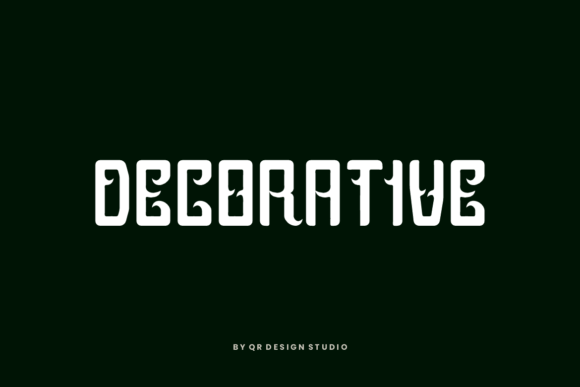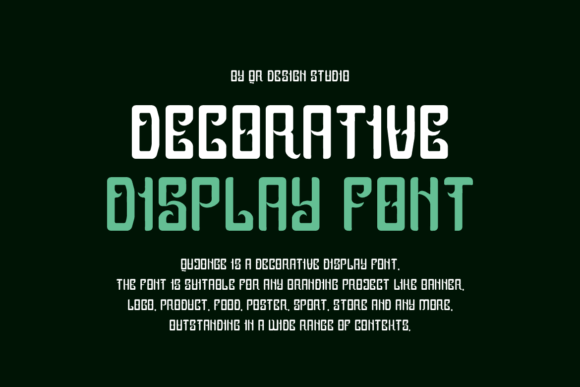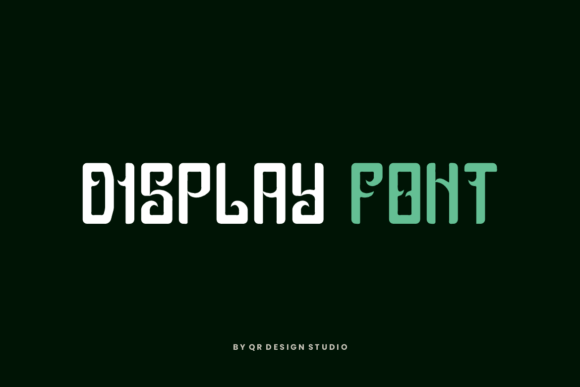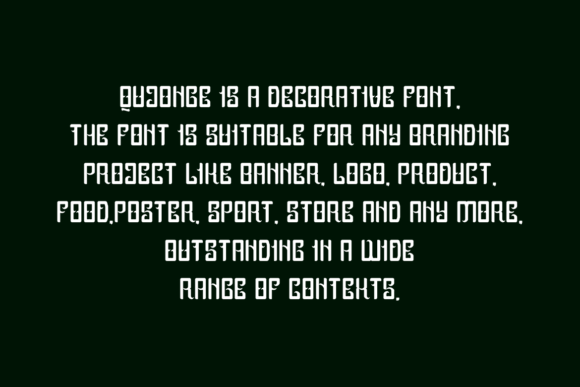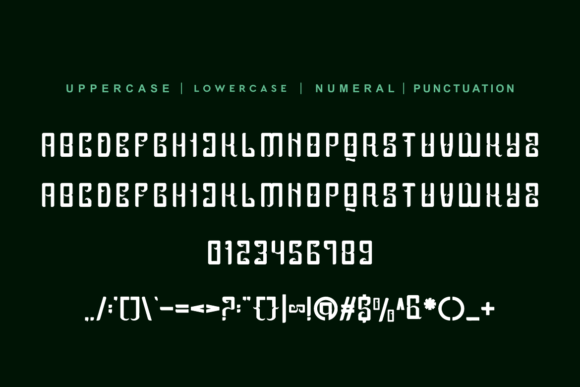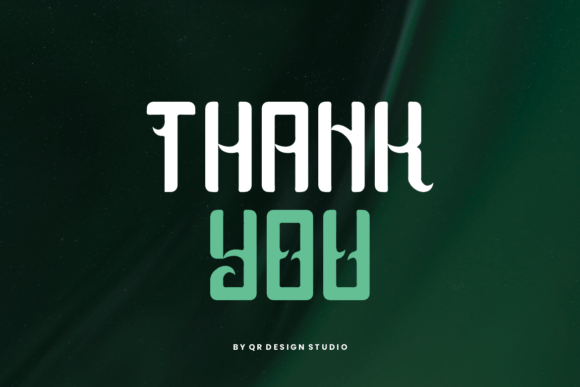
Introduction to Qujonge Font
Have you ever stared at a blank page, searching for the perfect font to bring your creative project to life? You know the moment when everything falls into place, and the words just flow? That’s exactly what Qujonge Font is designed to deliver – a stylish and bold decorative font that adds a touch of nostalgia to your headlines and logotype projects.
With its confident and dynamic feel, Qujonge Font is the perfect choice for designers who want to add a bit of flair to their projects. Whether you’re working on a personal or commercial project, this gorgeous font is sure to make a lasting impression.
Key Features of Qujonge Font
- High-quality design resource perfect for creative projects requiring a unique touch.
- Font size: 1,000 characters, including uppercase and lowercase letters, numbers, and punctuation.
- Unique characteristics: Qujonge Font features a bold, modern design with intricate details, making it ideal for use in logos, branding materials, and other creative projects.
Honest Review: Qujonge Font
As a designer, I’m always on the lookout for high-quality design resources that can elevate my creative project. The Qujonge Font is one such resource that caught my attention. With a transparent background, this font is perfect for designers who want to create stunning visuals without any distractions.
Here are some features that I like about the Qujonge Font:
However, there are some limitations to the Qujonge Font:
Overall, the Qujonge Font is a great addition to any designer’s toolkit. While it has some limitations, its high-quality design and transparent background make it a great resource for creative projects. With a free download available, it’s definitely worth checking out.
Some tips for getting the most out of Qujonge Font include using it for titles and headings, experimenting with different font sizes and colors, and combining it with other design elements to create visually appealing designs.
Qujonge Font is commonly used for creative projects such as logo design, branding, and marketing materials. Its high-quality design and transparent background feature make it an ideal choice for designers looking for a versatile and stylish font.